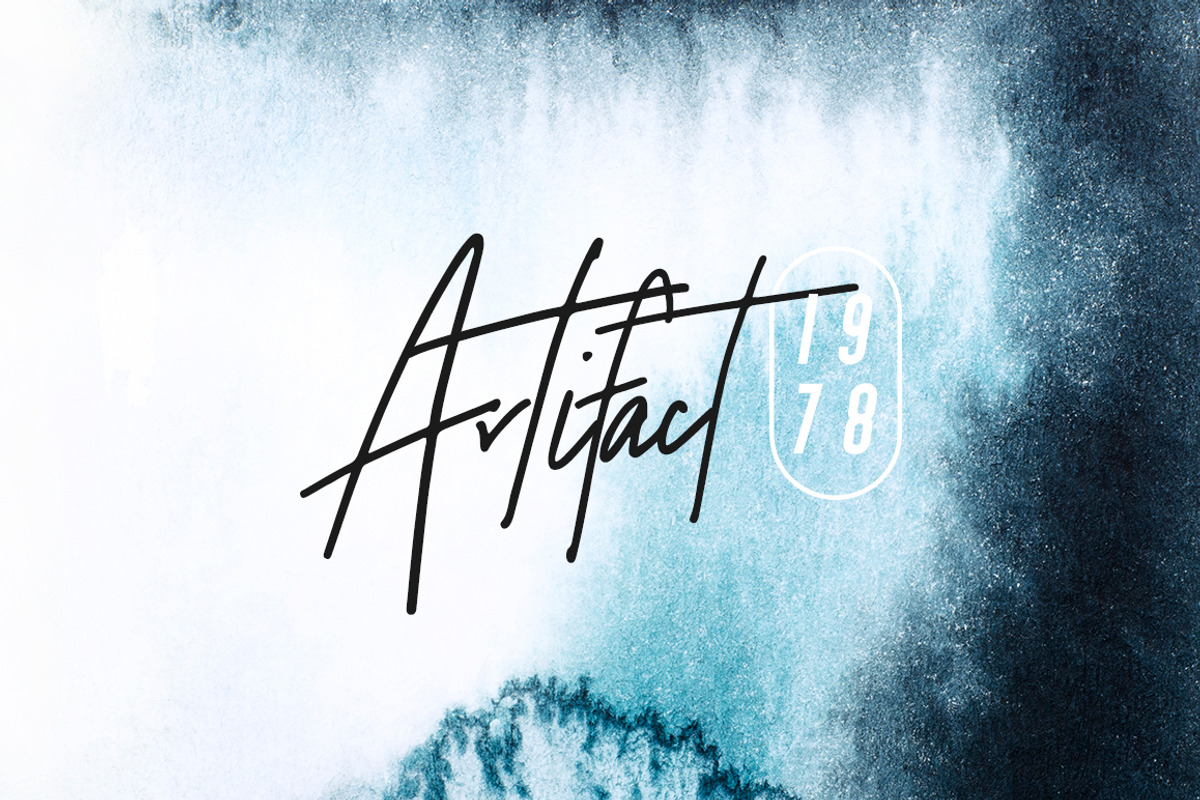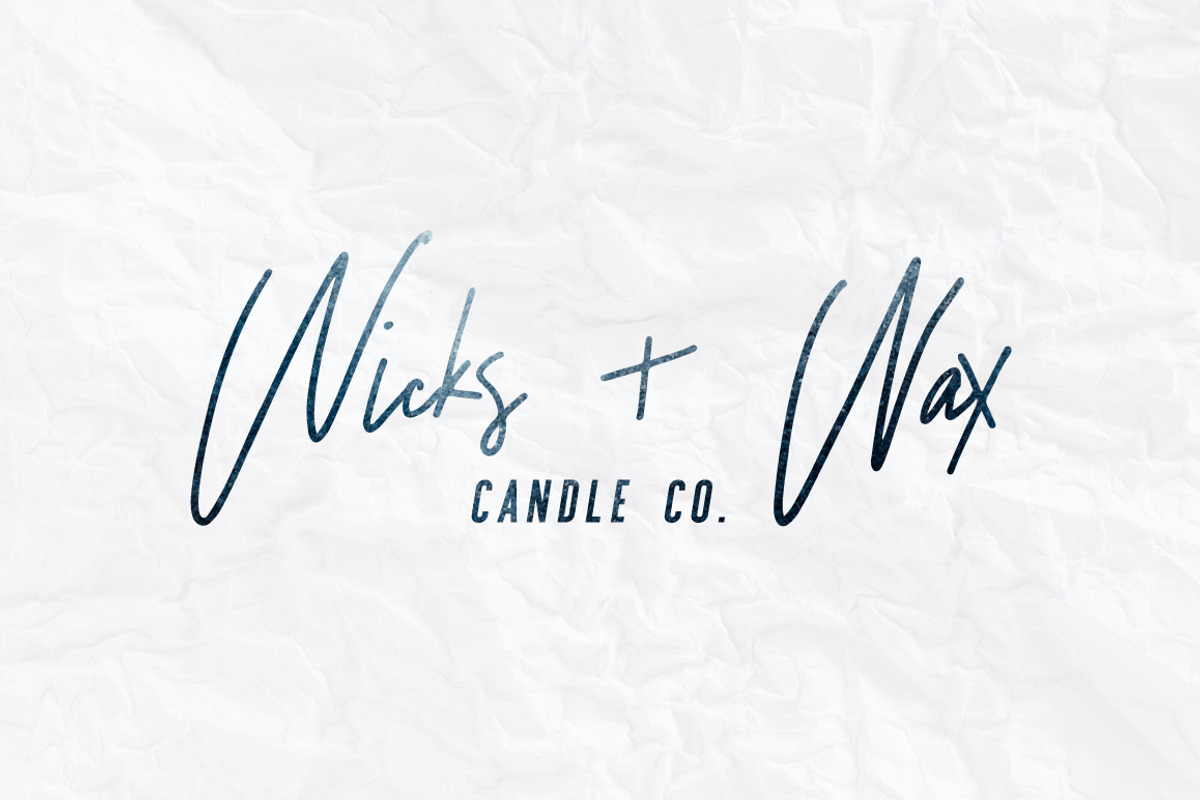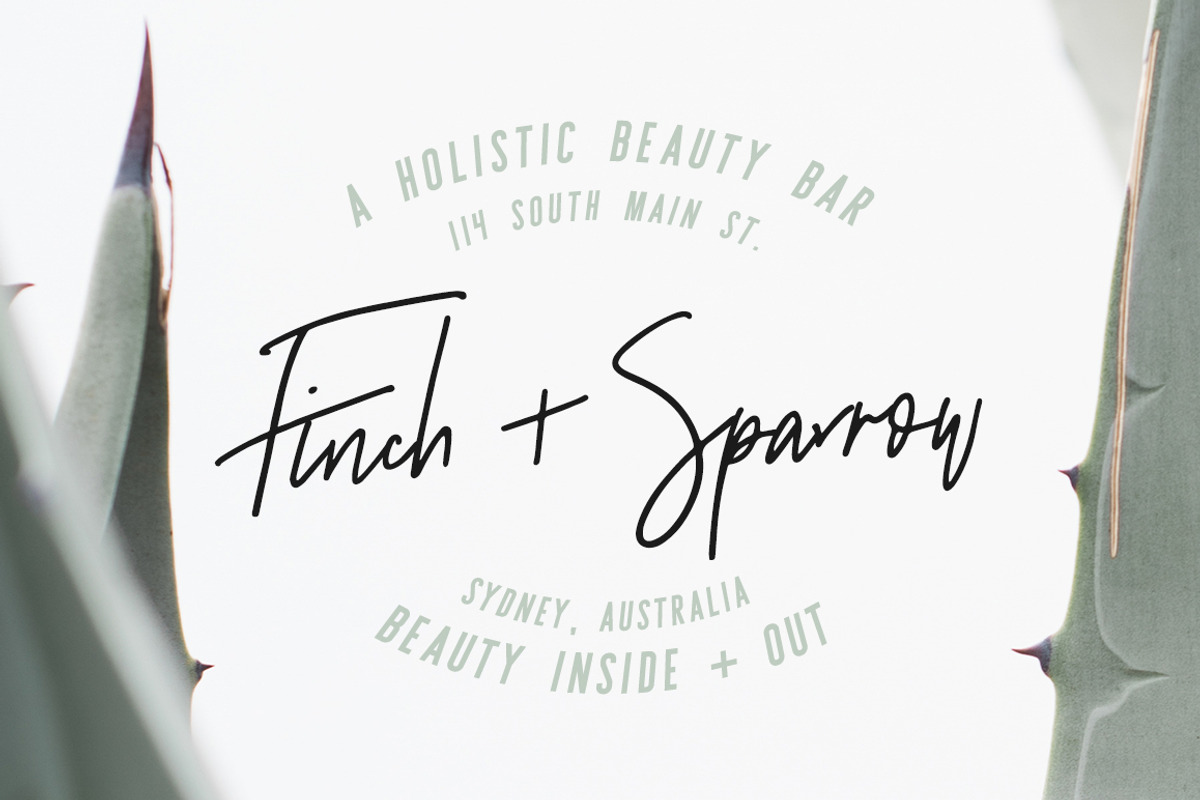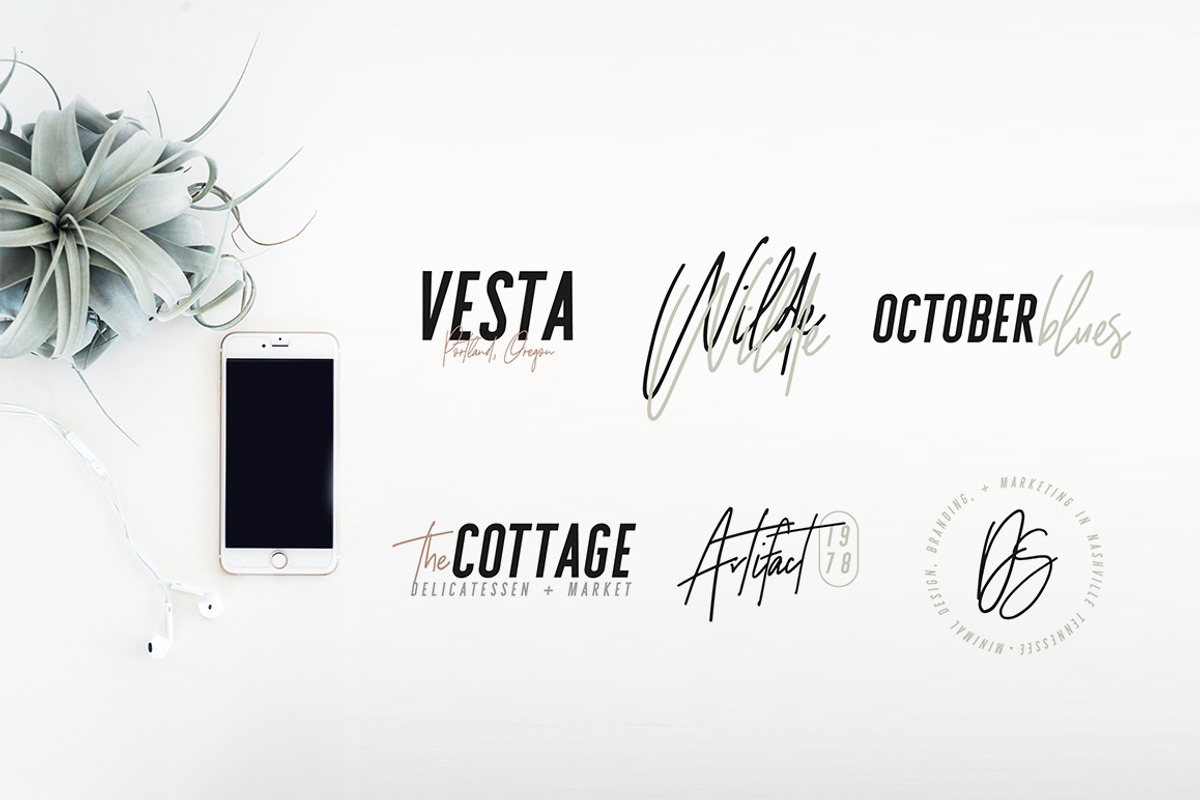
Sydney | Font Duo + 12 Free Logos
Sydney is a beautiful font duo that combines two trends (sleek sans serif caps and messy whimsical scripts) into one gorgeous package. You'll be seeing this combination a lot more in the design world over the next year – so here's a pack to help you be ahead of the curve!